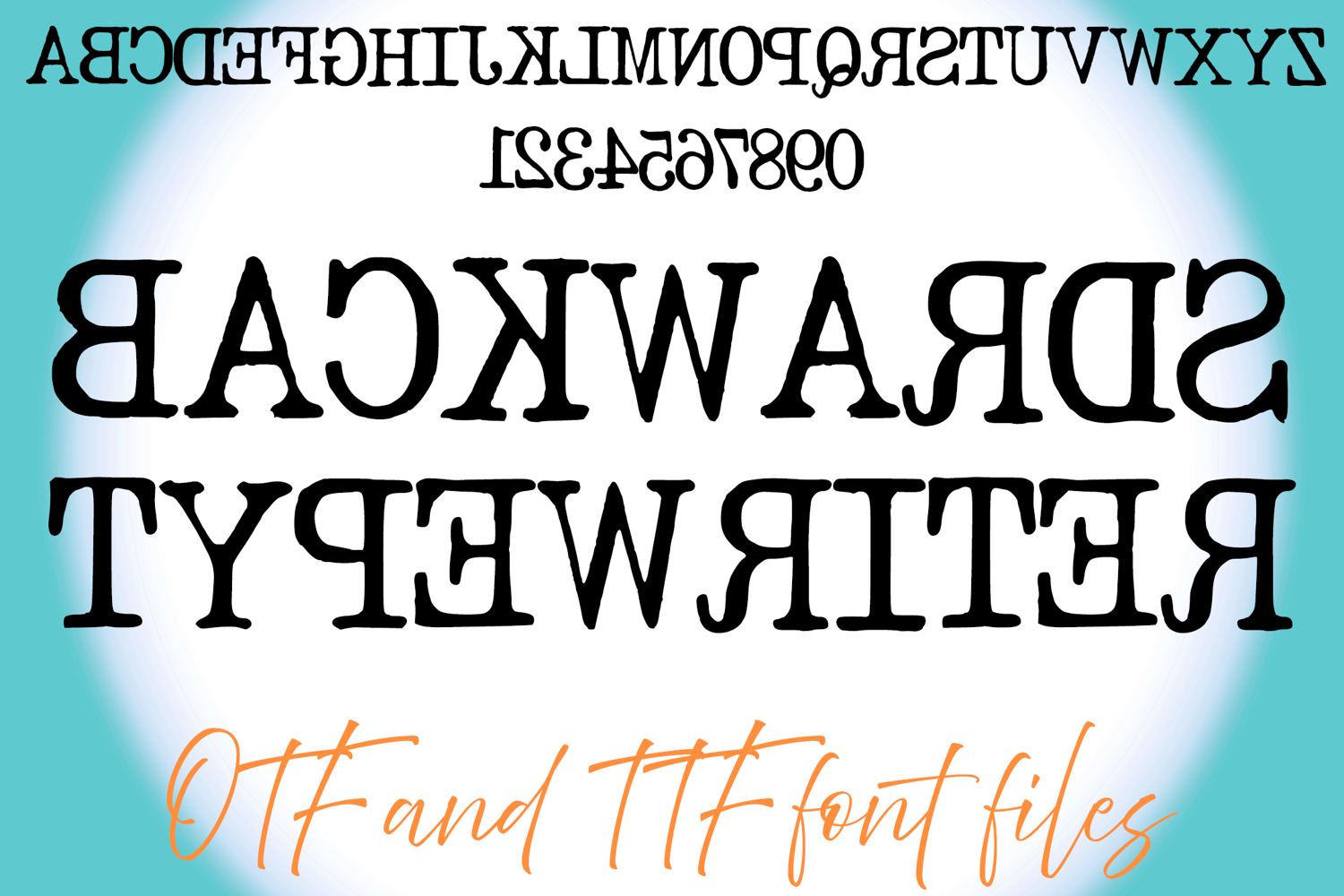
Backwards Typewriter Lettering ABC Text Font Alphabet OTF Type IllustrationÂ
A fun style font where you can create your own words and colour them to your vision!